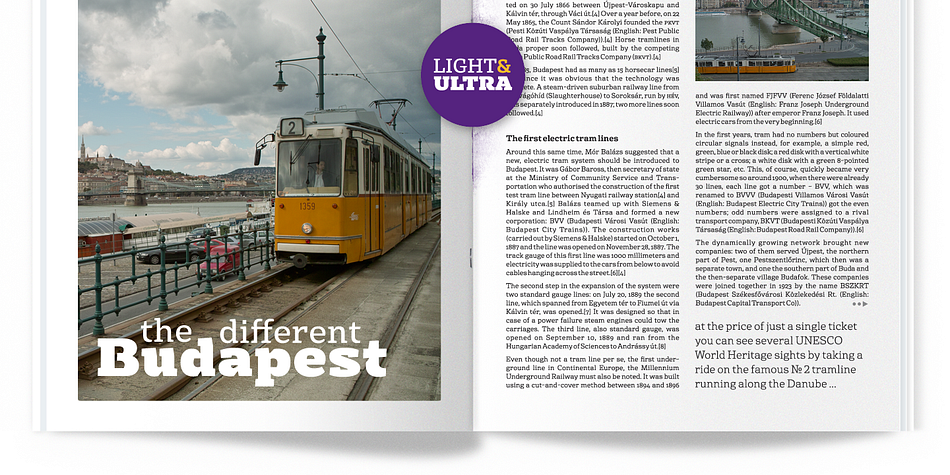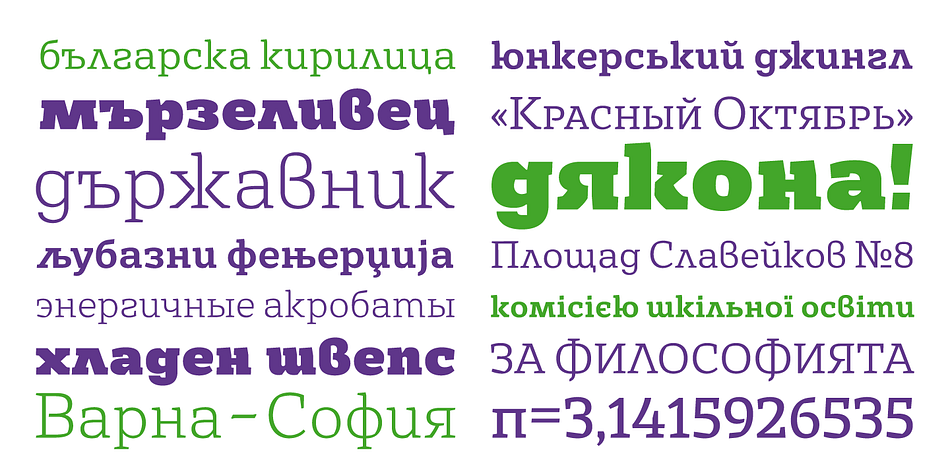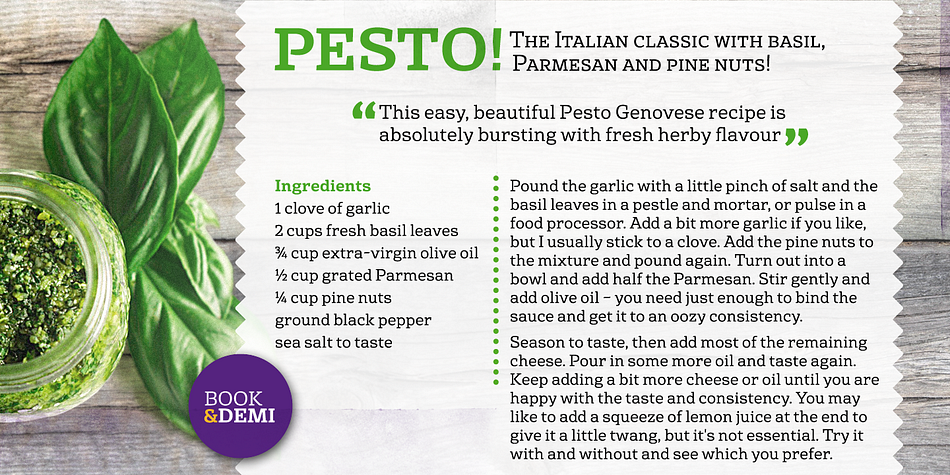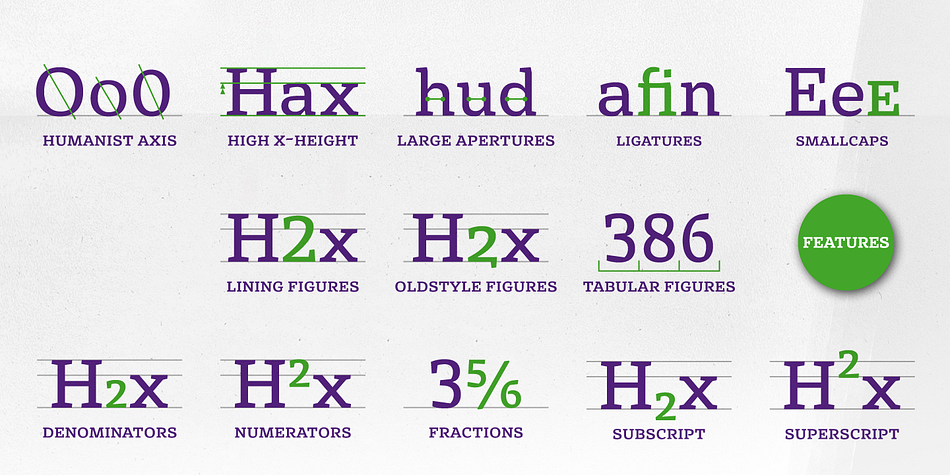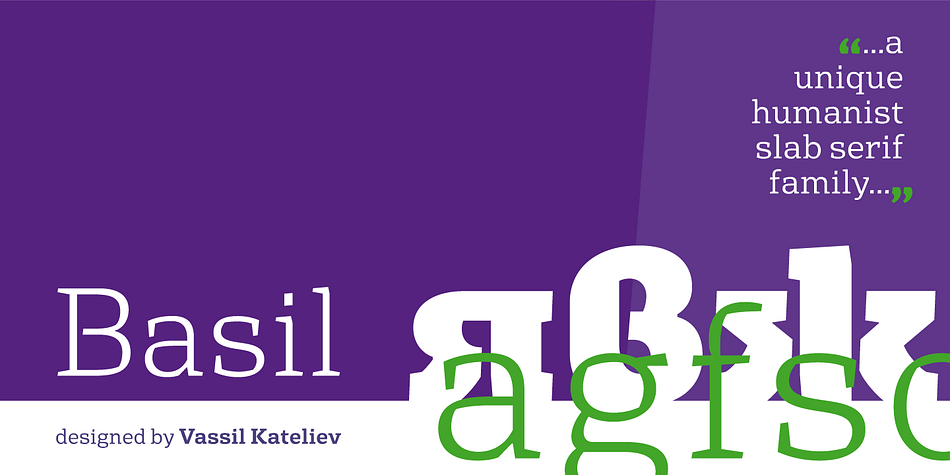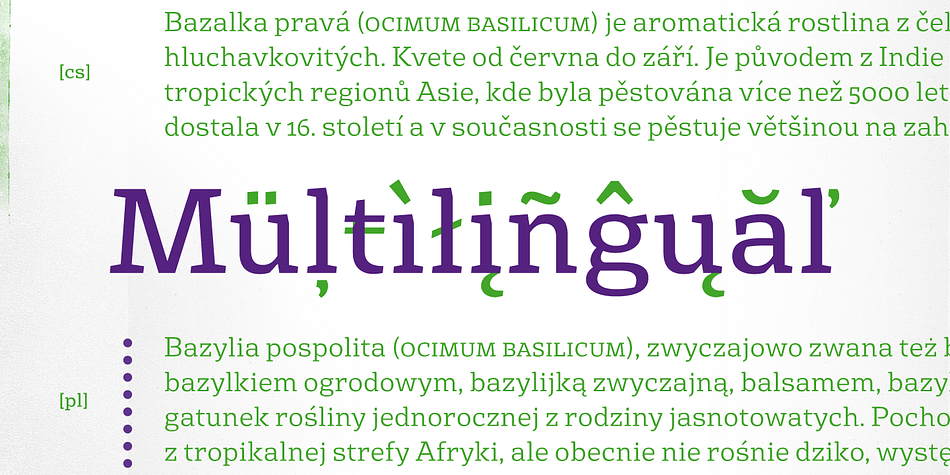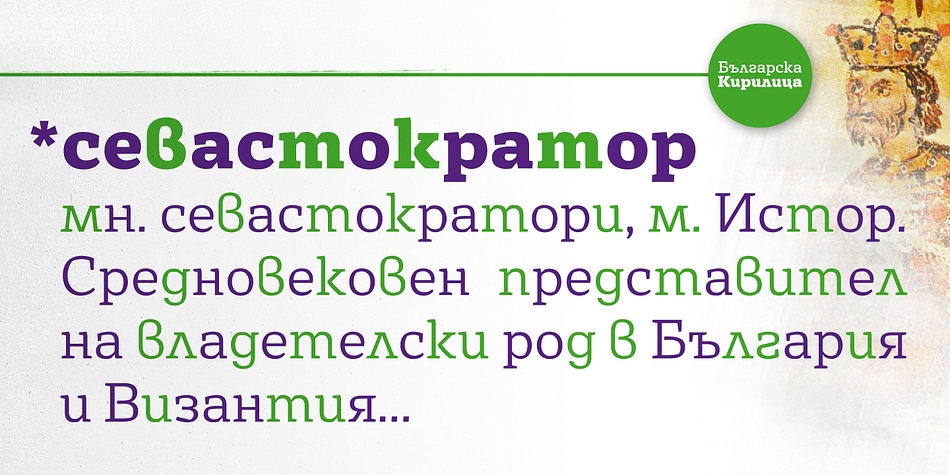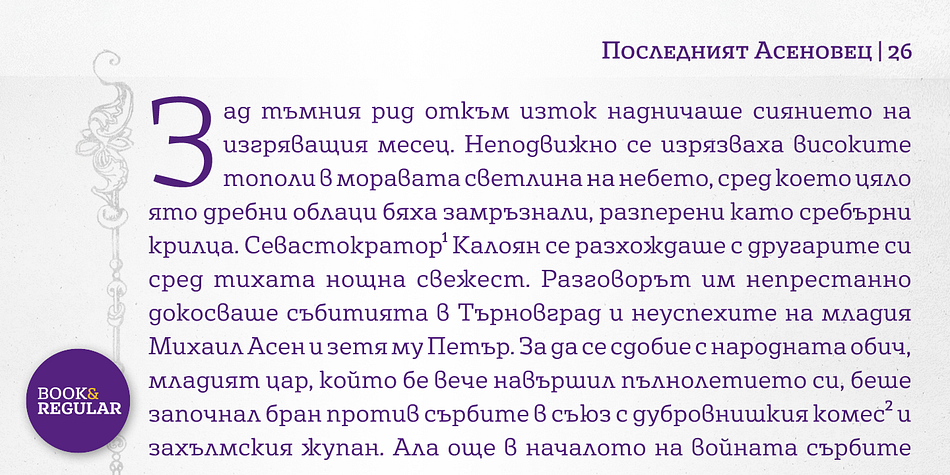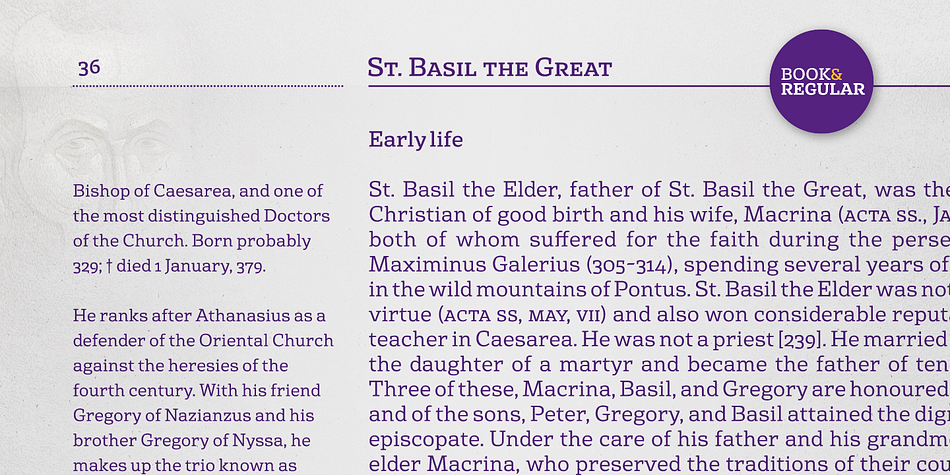
Basil is a slab serif font family. This typeface has six styles and was published by Karandash.
A mix between tradition and innovation, Basil is a unique humanist slab serif well suitable for broad range of design projects - editorial, logotype, poster, etc. With its tall x-height and generous internal spaces, the type family was especially designed with legibility in mind and is well suitable for body text at small sizes. In the same time Basil is equally able as titling and headline font due to numerous distinctive visual features that shape its attractive appearance. A true workhorse, packed with lots of OpenType features and full multilingual support, the type family consisting of six weights, with Regular available for FREE!
Basil type family received Special Mention in Cyrillic text Typeface category at 7th International Type Design Competition for non-Latin typefaces - Granshan 2014. It also was exhibited at New Bulgarian Typography exhibition part of Sofia Design week 2013.